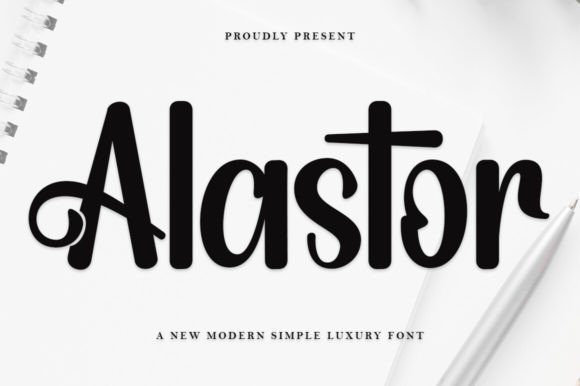
Getting into the Holiday Spirit with Alastor Font
As the holiday season approaches, I find myself rummaging through old photo albums and dusty storage boxes, searching for nostalgic treasures to incorporate into my designs. There’s something about the twinkling lights, the scent of pine, and the sound of carolers that sparks my creativity and gets me in the mood for festive fun.
That’s when I stumbled upon the perfect companion for my holiday projects: Alastor Font. This charming typeface is designed to capture the essence of the season, with its playful decorations and whimsical flair. Whether you’re crafting greeting cards, gift labels, or holiday-themed projects, Alastor Font adds a touch of warmth and nostalgia to your words.
For designers, Alastor Font is a valuable asset that brings a sense of cheer and whimsy to any project. Its unique style and decorative elements make it a standout choice for holiday designs, and its versatility ensures that it will remain a favorite for years to come.
- Unique Characteristics: The font features a unique blend of gothic and grotesque styles, with intricate details and bold lines, making it perfect for creating striking headlines and titles.
- Language Support: Alastor Font supports multiple languages, including Latin, Cyrillic, and Greek alphabets, making it a versatile choice for global design projects.
- Weight and Style: The font family includes multiple weights, from Light to Black, and various styles, such as Regular, Italic, Bold, and Bold Italic, offering designers a range of options for their designs.
Alastor Font Review
As a designer, I had the opportunity to work with Alastor Font, and I must say it’s a decent addition to any design project. ✨ One of its strongest points is its unique blend of elegance and sophistication, making it suitable for various industries, from luxury brands to high-end publications. The font’s versatility is a major plus, and its beautiful curves will surely make your text stand out.
Another advantage of Alastor Font is its readability. The font’s design ensures that even small text sizes remain clear and easy to read, which is essential for any project that requires extensive text content.
- ⚠️ Limited font weights: While Alastor Font has a range of styles, it’s lacking in terms of font weights. This can be a problem if you need to use the font for headings, titles, or other elements that require bold or italic variations.
- ⚠️ Limited language support: As of my knowledge cutoff, Alastor Font doesn’t support all languages, which can be a limitation for projects that require multilingual support.
- ⚠️ Not ideal for body text: While Alastor Font is great for headings and titles, it’s not the best choice for body text. Its elegant design can make it difficult to read large blocks of text.
Overall, Alastor Font is a solid choice for projects that require a touch of elegance and sophistication. However, its limitations should be taken into consideration, and designers should weigh these against the benefits of using this font.
Tips for Getting the Most Out of Alastor Font
For optimal results, use Alastor Font in bold or italic styles to add emphasis and visual interest.
Experiment with different font sizes and colors to create a cohesive and engaging design.
Alastor Font is ideal for:
- Typography-based designs, such as posters and brochures.
- Headings and titles in presentations and documents.
- Emphasizing key information in marketing materials.